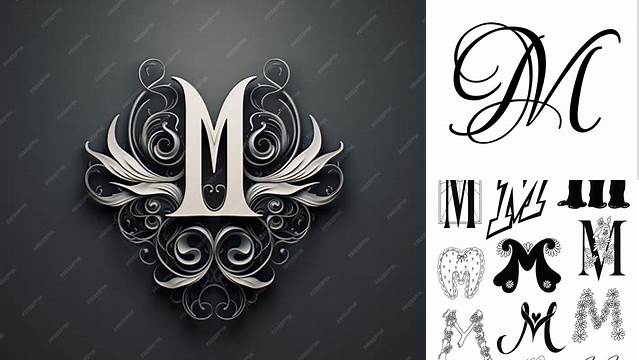
Fancy Letter M Fonts: Generator & Styles Guide
Hey guys! Ever wanted to add a little pizzazz to your texts, social media posts, or designs? One super fun way to do that is by using fancy letter m fonts. Whether you're creating invitations, logos, or just want your messages to stand out, a cool font can make all the difference. So, let’s dive into the world of fancy letter m fonts and how you can generate them easily!
What are Fancy Letter M Fonts?
When we talk about fancy letter m fonts, we're referring to a wide array of stylistic variations of the letter 'M.' These fonts go beyond the standard, plain-Jane versions you see every day. Think of elegant scripts, bold serifs, playful bubble letters, gothic styles, and everything in between! These fonts can add personality and flair to your projects, making them more visually appealing and engaging. The versatility of fancy letter m fonts means you can use them for a bunch of different purposes, from formal invitations to quirky social media posts. You might want a sophisticated, flowing 'M' for a wedding invitation or a chunky, fun 'M' for a kid's birthday party invite. No matter the occasion, there’s a fancy letter m font out there that's just right. Finding the perfect font can feel like discovering a hidden treasure, especially when it perfectly captures the mood or message you're trying to convey. So, next time you're working on a project, remember the power of a good fancy letter m font! It can really take your work to the next level, adding that special something that makes people stop and take notice. And let’s be real, who doesn’t love a little extra oomph in their designs? Using different fancy letter m fonts can be a fantastic way to express your creativity and make your projects truly unique.
Why Use a Fancy Letter M Font?
Why bother with fancy letter m fonts when you can just stick to the standard ones? Well, there are tons of reasons! For starters, they can instantly grab attention. Think about it: a regular, plain 'M' is functional, sure, but a fancy letter m font? That's a statement! It’s like choosing to wear a sparkly dress to a party instead of jeans – you're gonna stand out! Beyond just looking cool, fancy letter m fonts can help set the tone for your message. A delicate, swirling 'M' in a script font gives off a totally different vibe than a bold, blocky 'M' in a sans-serif style. The font choice can tell your audience whether you're going for elegance, fun, seriousness, or something else entirely. Plus, using fancy letter m fonts can be a great way to express your creativity and add a personal touch to your projects. If you're designing a logo, a unique 'M' can make your brand instantly recognizable. If you're crafting invitations, a fancy letter m font can give guests a hint of what to expect at the event. And even in everyday communications, like social media posts or emails, a well-chosen font can make your words feel more special. So, whether you're aiming to make a big impact or just add a little flair, fancy letter m fonts are a fantastic tool to have in your design arsenal. They're not just about aesthetics; they're about communication and expression, turning a simple letter into a powerful visual element. Remember, the right font can be the secret ingredient that makes your message truly shine!
Fancy Letter M Fonts Generator Tools
Okay, so you're convinced that fancy letter m fonts are the way to go, but how do you actually get them? Good news! There are a bunch of super easy-to-use fancy letter m fonts generator tools out there. These generators are like magic wands for your text, transforming ordinary letters into extraordinary ones with just a few clicks. One of the most popular types of generators is the online font generator. These websites let you type in the letter 'M' (or any text, really), and then they'll show you a whole bunch of fancy letter m fonts to choose from. You can usually copy and paste these fonts directly into your documents, social media posts, or wherever else you need them. It’s like having a font library at your fingertips! Another great option is font design software. Programs like Adobe Illustrator or Procreate give you even more control over the look of your 'M.' You can tweak existing fonts, create your own from scratch, and really get into the nitty-gritty details of typography. This is perfect if you have a very specific vision in mind or if you want to create a truly unique fancy letter m font. Mobile apps are also stepping up their font game. There are apps available that offer a range of stylish fonts, including, of course, fancy letter m fonts. These apps are super handy for creating eye-catching social media content on the go. No matter which tool you choose, the process is usually pretty straightforward: type your letter, browse the options, and copy the fancy letter m font you like best. It's quick, easy, and a whole lot of fun! So, go ahead and experiment with different generators and find the ones that work best for your style and needs. The world of fancy letter m fonts is just a few clicks away!
Different Styles of Fancy Letter M Fonts
The world of fancy letter m fonts is super diverse, guys! It's like a giant candy store for typography lovers, with so many different styles to choose from. Let's break down some of the most popular categories, so you can find the perfect 'M' for your project. First up, we have script fonts. These are those elegant, flowing letters that look like they were written with a fancy pen. They're perfect for adding a touch of sophistication and are often used for wedding invitations, logos, and anything that needs a dash of class. Think graceful loops and delicate curves – script fonts are all about beauty and refinement. Next, there are serif fonts. Serifs are the little feet or flags at the ends of the strokes in a letter. Serif fonts tend to look traditional and authoritative, making them a great choice for formal documents, books, and anything that needs to convey a sense of trustworthiness. A fancy letter m font in a serif style can add a touch of old-world charm to your project. On the flip side, we have sans-serif fonts. As the name suggests, these fonts don't have serifs. They have a clean, modern look that's perfect for websites, presentations, and anything that needs to feel fresh and contemporary. A sans-serif fancy letter m font can give your design a sleek and minimalist vibe. If you're feeling bold, why not try a display font? Display fonts are designed to grab attention and are often used for headlines, posters, and other large-format designs. They come in all sorts of styles, from chunky and playful to edgy and futuristic. A fancy letter m font in a display style is sure to make a statement. And then there are the novelty fonts – the wildcards of the font world! These fonts can be anything from bubble letters to graffiti styles to hand-drawn designs. They're perfect for adding a touch of fun and personality to your projects. A novelty fancy letter m font is a great way to show off your creative side. With so many styles to choose from, the possibilities are endless! So, don't be afraid to experiment and find the fancy letter m fonts that speak to you.
How to Choose the Right Fancy Letter M Font
Choosing the right fancy letter m font can feel a bit overwhelming with so many options out there, but don't worry, we've got you covered! The key is to think about the overall vibe you're going for and the context in which the font will be used. First, consider the tone of your project. Are you aiming for something elegant and formal, or something fun and playful? A script font might be perfect for a wedding invitation, but it wouldn't be the best choice for a children's birthday party invite. Similarly, a bold, blocky font might work great for a poster, but it could feel out of place in a formal business document. Think about the message you want to convey and choose a fancy letter m font that aligns with that. Next, think about readability. A fancy letter m font might look beautiful, but if it's too hard to read, it's not doing its job. Make sure the font is clear and legible, especially if it's going to be used for large blocks of text. Test it out in different sizes and see how it looks. If people have to squint or strain to read your 'M,' it's probably not the right choice. Also, consider the medium. A fancy letter m font that looks great on your computer screen might not translate well to print, or vice versa. Some fonts are optimized for digital use, while others are designed for print. Think about where your font will be used and choose accordingly. For example, if you're designing a website, you'll want to choose a font that looks good on a variety of screens and devices. If you're printing a brochure, you'll want a font that prints clearly and crisply. Don't be afraid to mix and match, but do it thoughtfully. Pairing different fonts can create a visually interesting effect, but it can also look messy if it's not done well. A good rule of thumb is to stick to two or three fonts per project and make sure they complement each other. A fancy letter m font can be paired with a simpler font for body text, for example. And finally, trust your instincts! If you love a particular fancy letter m font, go for it! The most important thing is to choose a font that you feel good about and that represents your style and vision.
Where to Use Fancy Letter M Fonts
Okay, you've got your fancy letter m font picked out – now what? The possibilities are practically endless! These stylish 'M's can add flair to all sorts of projects, both big and small. Let's brainstorm some ideas. First off, think about branding. A unique fancy letter m font can be a game-changer for your logo or business cards. Imagine a sleek, modern 'M' for a tech startup or a whimsical, hand-drawn 'M' for a creative agency. A distinctive font can help you stand out from the competition and make a lasting impression on your clients. If you're planning an event, fancy letter m fonts are your best friend for invitations and signage. A script font can add elegance to wedding invitations, while a bold display font can make a birthday party poster pop. The right font can set the tone for your event and get people excited to attend. Social media is another fantastic place to use fancy letter m fonts. Whether you're creating eye-catching graphics for Instagram, designing a cool banner for your Facebook page, or just want your tweets to stand out, a unique font can help you grab attention in the crowded world of social media. Think about using a fancy letter m font in your profile name or bio to add a personal touch. For creative projects like scrapbooking, journaling, or DIY crafts, fancy letter m fonts can add a special touch. Use them for titles, headings, or even just to write out names or dates. A handwritten-style font can give your projects a personal, heartfelt feel. And don't forget about personal communications! A fancy letter m font can make your emails, letters, and cards feel a little more special. Use them for headings, signatures, or even the entire message. It's a simple way to add a touch of personality to your everyday correspondence. So, whether you're working on a professional project or just want to add some flair to your personal life, fancy letter m fonts are a versatile and fun tool to have in your design arsenal. Get creative and see where they can take you!
Tips for Generating Fancy Letter M Fonts
Generating fancy letter m fonts is super fun and easy, but there are a few tips and tricks that can help you get the best results. Let's dive into some insider secrets for making your 'M's look amazing! First up, experiment with different generators. There are tons of fancy letter m fonts generator tools out there, and each one has its own unique selection of fonts. Don't just stick to the first one you find – try out a few different ones and see what they have to offer. You might be surprised at the variety of styles you can discover. When you're browsing fonts, pay attention to the details. Look at the thickness of the strokes, the curves and angles, and the overall shape of the letter. A small detail can make a big difference in the way a font looks and feels. For example, a fancy letter m font with delicate, thin strokes will have a different vibe than one with bold, thick strokes. Also, consider the spacing between letters. Some fonts have wider spacing than others, which can affect readability. Make sure the spacing looks balanced and even. Don't be afraid to customize! Some fancy letter m fonts generator tools allow you to tweak the fonts to your liking. You might be able to adjust the size, color, or spacing, or even add special effects like shadows or outlines. Customizing your font can help you create a truly unique look that perfectly matches your project. If you're using a font design program, take advantage of the advanced features. These programs offer a wide range of tools for creating and editing fonts, including the ability to draw your own letters from scratch. This is perfect if you have a very specific vision in mind or if you want to create a fancy letter m font that's truly one-of-a-kind. Remember to save your favorite fonts! Once you've found a few fancy letter m fonts that you love, make sure to save them so you can use them again in the future. Create a folder on your computer or in the cloud where you can store your fonts, or use a font management tool to keep everything organized. And finally, have fun! Generating fancy letter m fonts should be an enjoyable process. Don't be afraid to experiment, try new things, and let your creativity flow. The more you play around with different fonts, the better you'll get at finding the perfect 'M' for any occasion.
Common Mistakes to Avoid When Using Fancy Letter M Fonts
Using fancy letter m fonts can add a lot of flair to your projects, but there are a few common pitfalls to watch out for. Let's talk about some mistakes you'll want to avoid, so your 'M's always look their best! First up, don't overdo it. It's tempting to use fancy letter m fonts everywhere, but too much of a good thing can be overwhelming. If you use too many different fonts in one project, it can look cluttered and unprofessional. A good rule of thumb is to stick to two or three fonts per project and make sure they complement each other. Think of your fonts like accessories – a few well-chosen pieces can enhance your outfit, but too many can make you look like you're trying too hard. Avoid using fancy letter m fonts for large blocks of text. While a decorative 'M' might look great in a headline or title, it can be difficult to read in paragraphs or long sentences. For body text, it's best to stick to simpler, more legible fonts. Save the fancy letter m fonts for accents and highlights. Be mindful of your font pairings. Not all fonts play well together. A fancy letter m font might clash with another decorative font, creating a jarring effect. If you're pairing fonts, try to choose ones that have contrasting styles. For example, you could pair a script font with a sans-serif font, or a bold font with a lighter one. This will create visual interest without being overwhelming. Pay attention to readability. A fancy letter m font might look beautiful, but if it's too hard to read, it's not serving its purpose. Make sure your font is clear and legible, especially if it's going to be used in a prominent place. Test it out in different sizes and see how it looks. If people have to strain to read your 'M,' it's probably not the right choice. Don't forget about context. The fancy letter m font you choose should be appropriate for the occasion. A whimsical, playful font might be perfect for a children's birthday party, but it wouldn't be suitable for a formal business document. Think about the message you want to convey and choose a font that aligns with that. And finally, proofread! Even the most beautiful fancy letter m font can't save you from typos. Before you finalize your design, make sure to double-check your spelling and grammar. A mistake can undo all your hard work and make your project look unprofessional.
Inspiring Examples of Fancy Letter M Fonts in Design
Ready to see some fancy letter m fonts in action? Let's check out some inspiring examples of how these stylish 'M's can elevate designs across various mediums. Seeing real-world applications can spark your creativity and give you ideas for your own projects. First, let's talk logos. A fancy letter m font can be the star of a logo, making a brand instantly recognizable. Think about the McDonald's golden arches – a simple yet iconic 'M' shape. Or consider a luxury brand using an elegant script 'M' to convey sophistication and class. The right font can tell a brand's story in a single letter. In the world of publishing, fancy letter m fonts can make book covers and magazine layouts more eye-catching. A bold, display-style 'M' can grab attention on a bookshelf, while a delicate script 'M' can add a touch of romance to a novel cover. The choice of font sets the tone for the entire publication. For wedding invitations and stationery, fancy letter m fonts are a go-to choice for adding elegance and personalization. A beautifully calligraphic 'M' can grace the invitation, place cards, and even the thank-you notes, creating a cohesive and memorable theme. These fonts add a touch of timeless charm to special occasions. Digital designs, such as websites and social media graphics, also benefit from fancy letter m fonts. A modern, sans-serif 'M' can give a website a sleek and contemporary feel, while a playful, hand-drawn 'M' can add personality to social media posts. The key is to choose a font that aligns with the overall aesthetic and brand identity. In the realm of art and illustration, fancy letter m fonts can be incorporated into posters, prints, and other visual creations. Lettering artists often use creative 'M' designs to add a unique touch to their work, blending typography with imagery to convey messages and emotions. These examples showcase the versatility of fancy letter m fonts. Whether it's branding, publishing, events, digital design, or art, a well-chosen 'M' can make a lasting impression. So, get inspired and explore the possibilities for your own projects!
The Psychology of Fonts: How Fancy Letter M Impacts Perception
Did you know that fonts have their own psychology? It's true! The fancy letter m font you choose can actually influence how people perceive your message. Let's dive into the fascinating world of font psychology and explore how different styles of 'M' can impact emotions and impressions. Script fonts, with their elegant curves and flowing lines, often evoke feelings of sophistication, romance, and tradition. A fancy letter m font in a script style might be perfect for wedding invitations or luxury branding, where you want to convey a sense of timeless beauty and grace. Serif fonts, characterized by their little